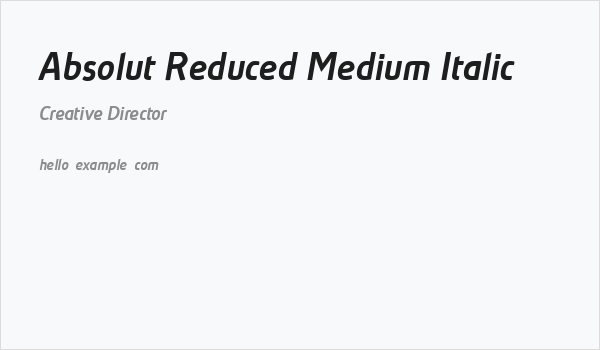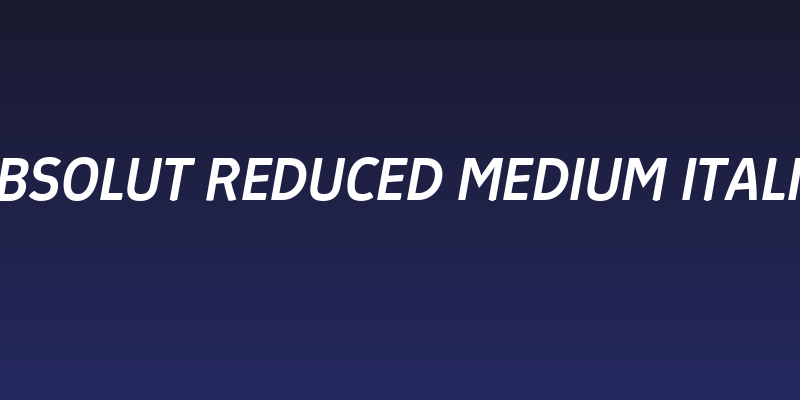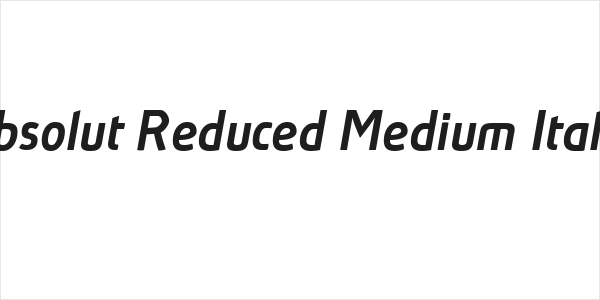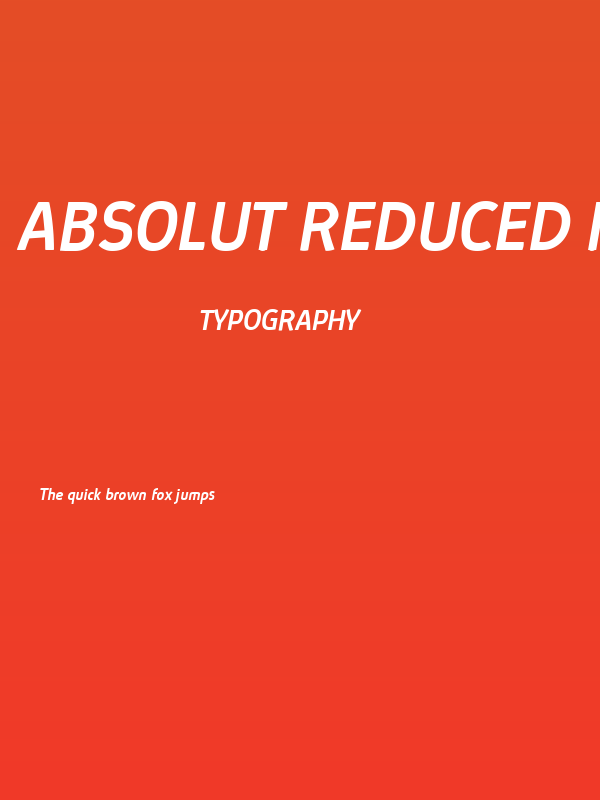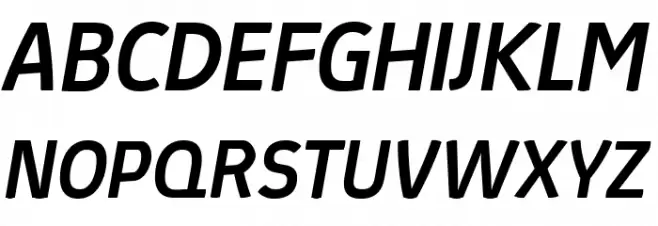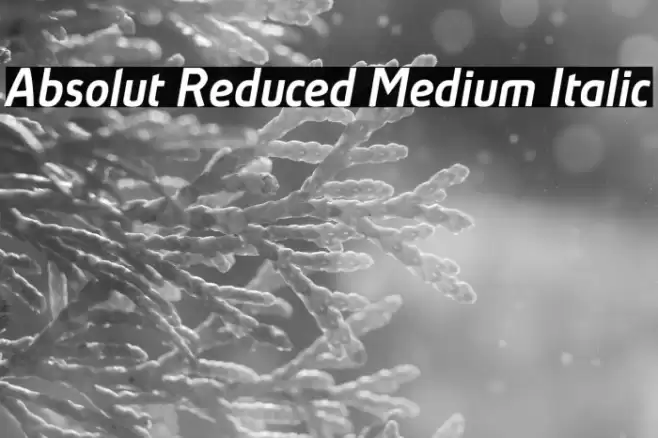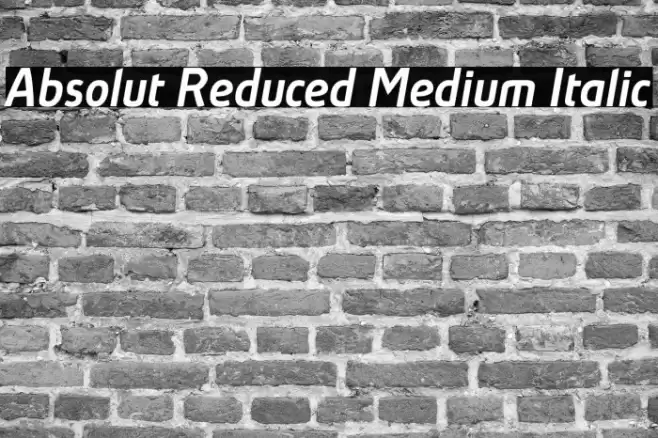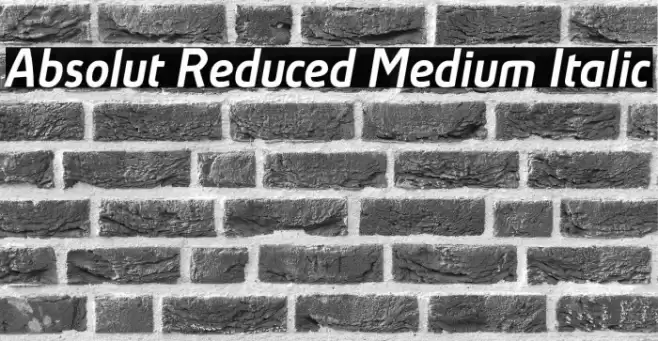
Absolut Reduced Medium Italic Font
This typeface features a sleek, modern design with a slight italic slant, giving it a dynamic and forward-moving appearance. The characters are clean and well-defined, with a consistent stroke width that maintains readability across different sizes. The uppercase and lowercase letters are well-proportioned, providing a harmonious look. The numerals and special characters are designed to match the overall style, ensuring a cohesive appearance. This font is versatile, suitable for a variety of design applications, from digital to print media.
| Proposed Projects | Ideal for branding, advertising, and editorial design projects where a contemporary and professional look is desired. |